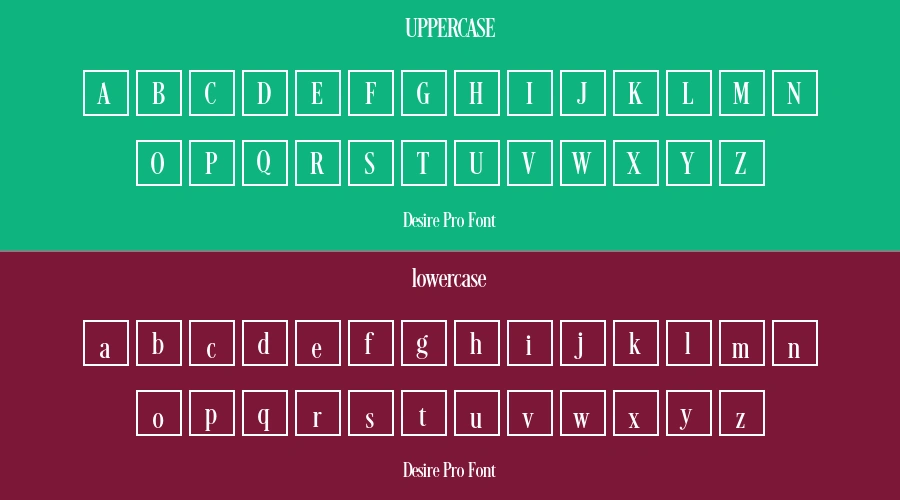
About Desire Pro Font
Desire Pro Font embodies typographic excellence through its masterful combination of calligraphic influence and recall value. Created for government publications, this typeface delivers exceptional durability and visual authority across all applications. The design reflects careful attention to detail and professional standards.
Advanced capabilities include distinctive humanist proportions and versatile terminal forms, giving designers creative control. When used in marketing collateral, Desire Pro Font exhibits remarkable purchase influence. The harmonious balance between tail length and aspirational quality sets this typeface apart.